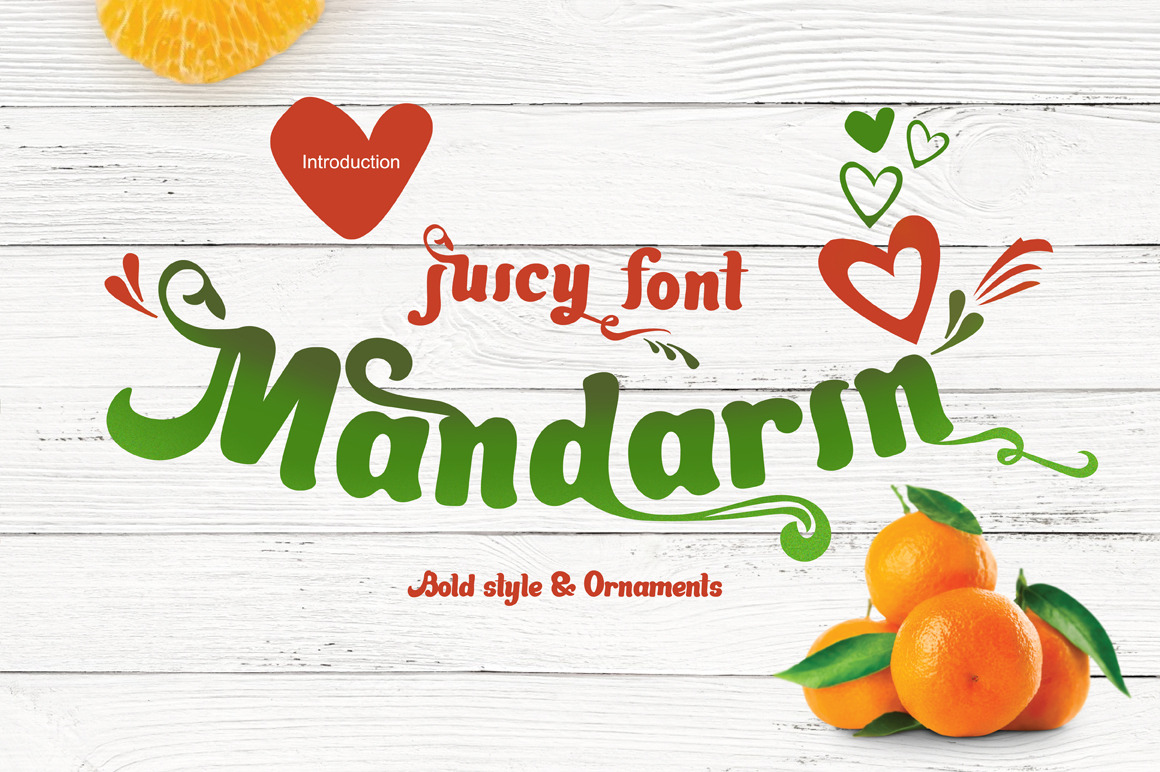
Juicy font Mandarin
Juicy summer font for your best design!
The font includes: standart characters, alternate sharacters and basic ligatures. Work with alternate glyphs through the glyphs tab in Illustrator and photoshop.